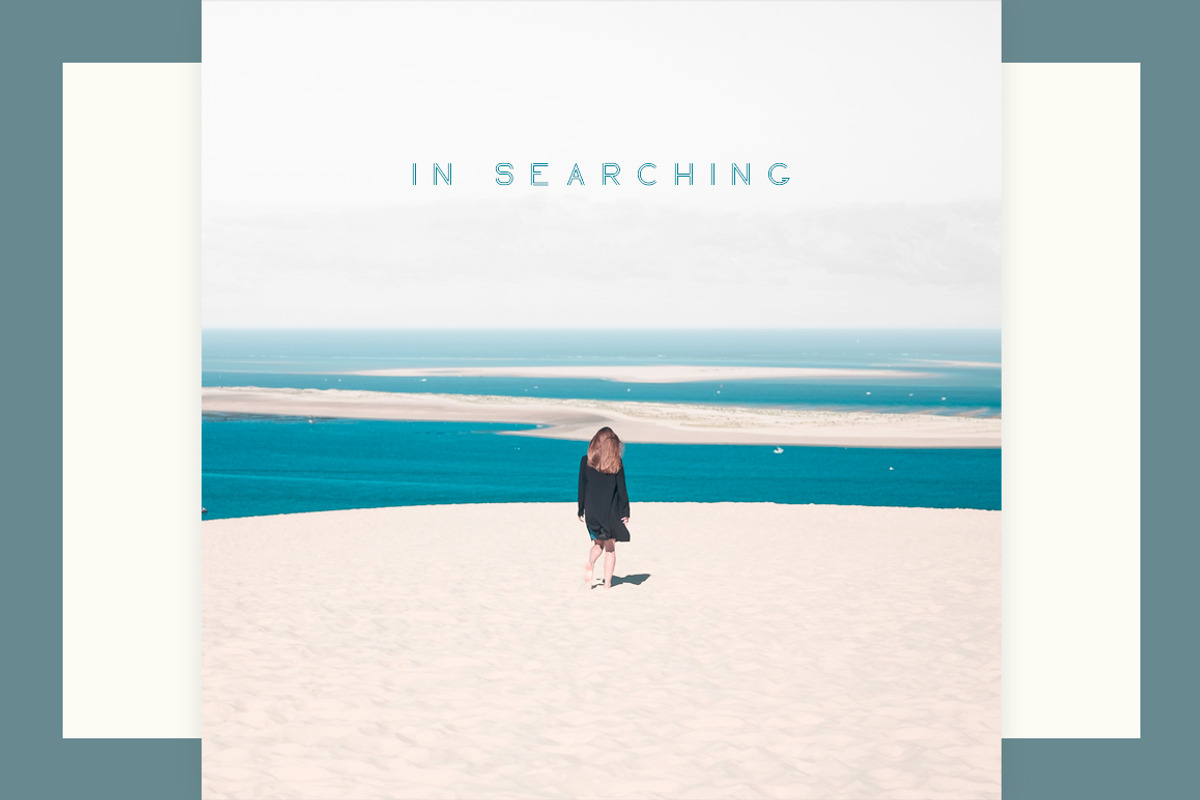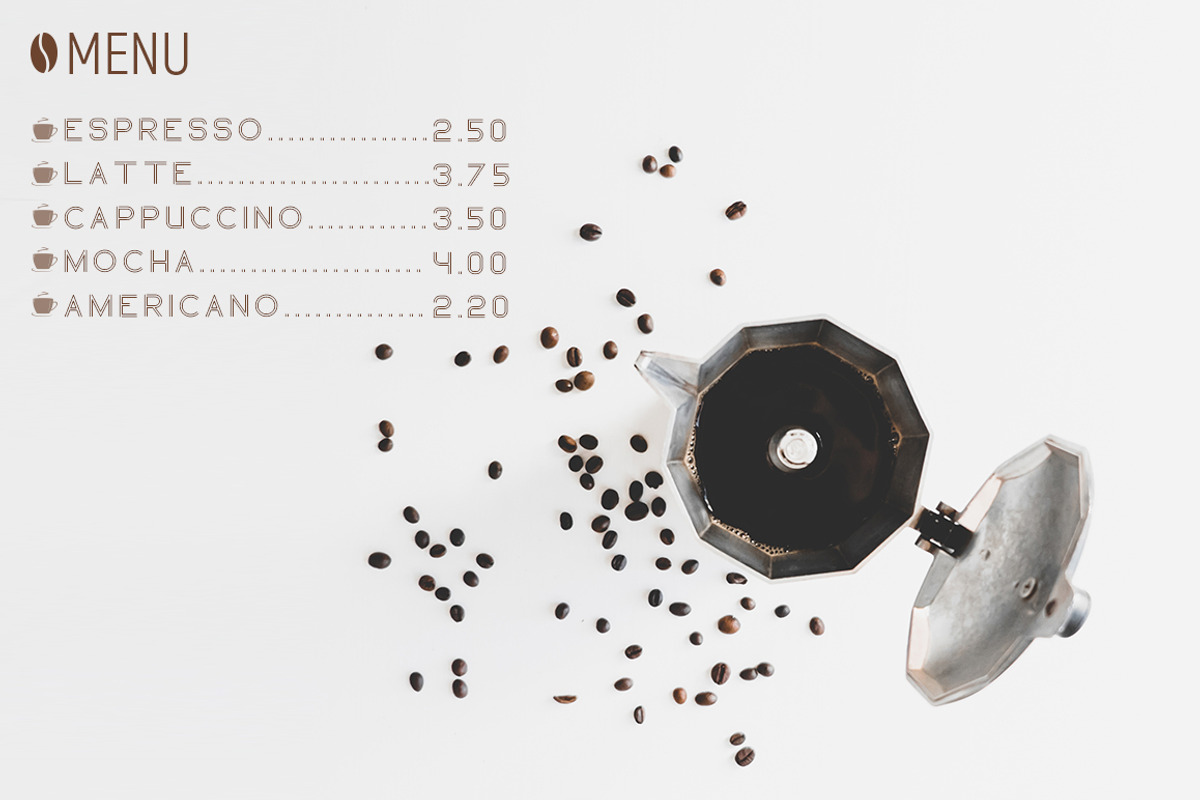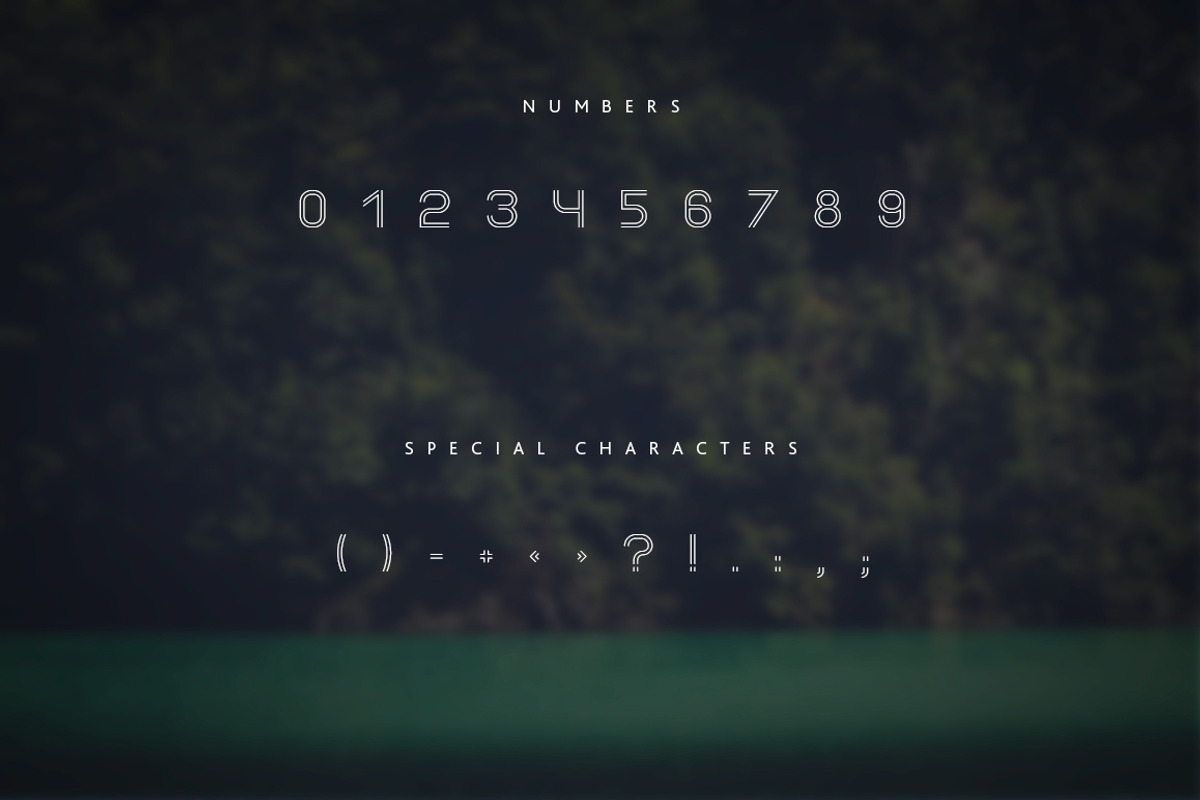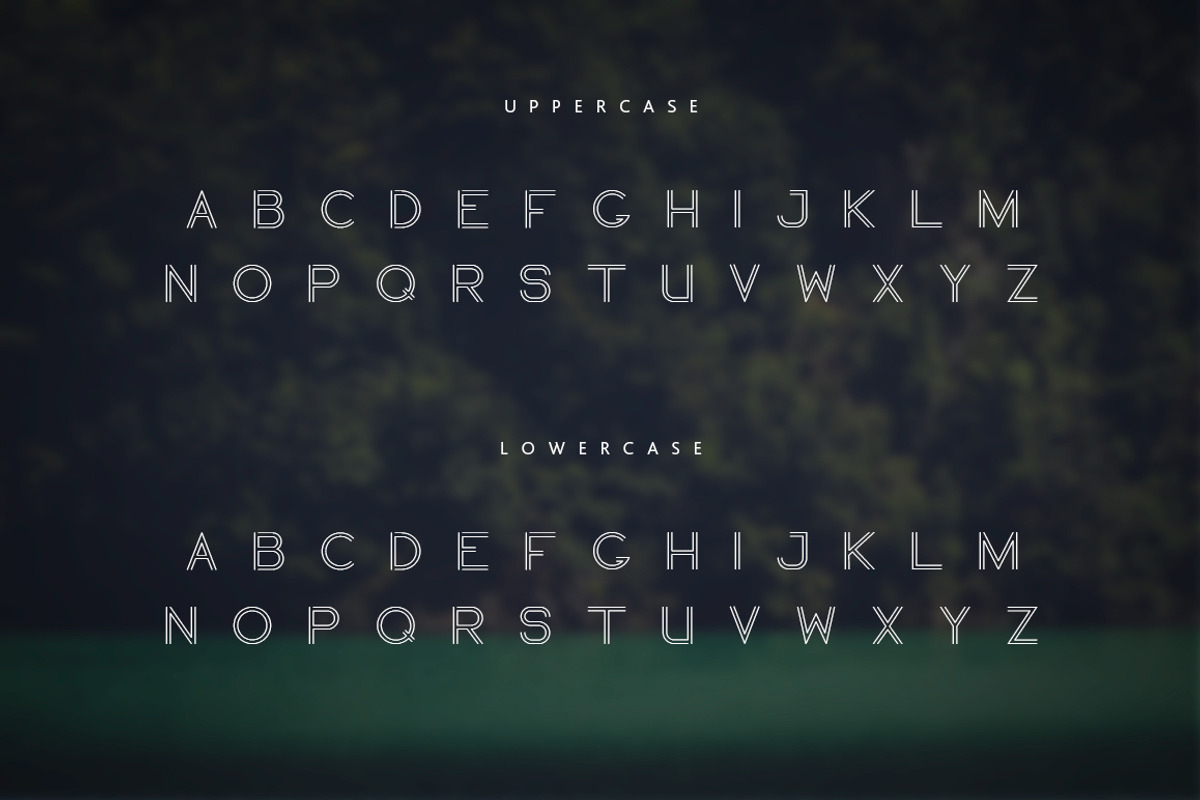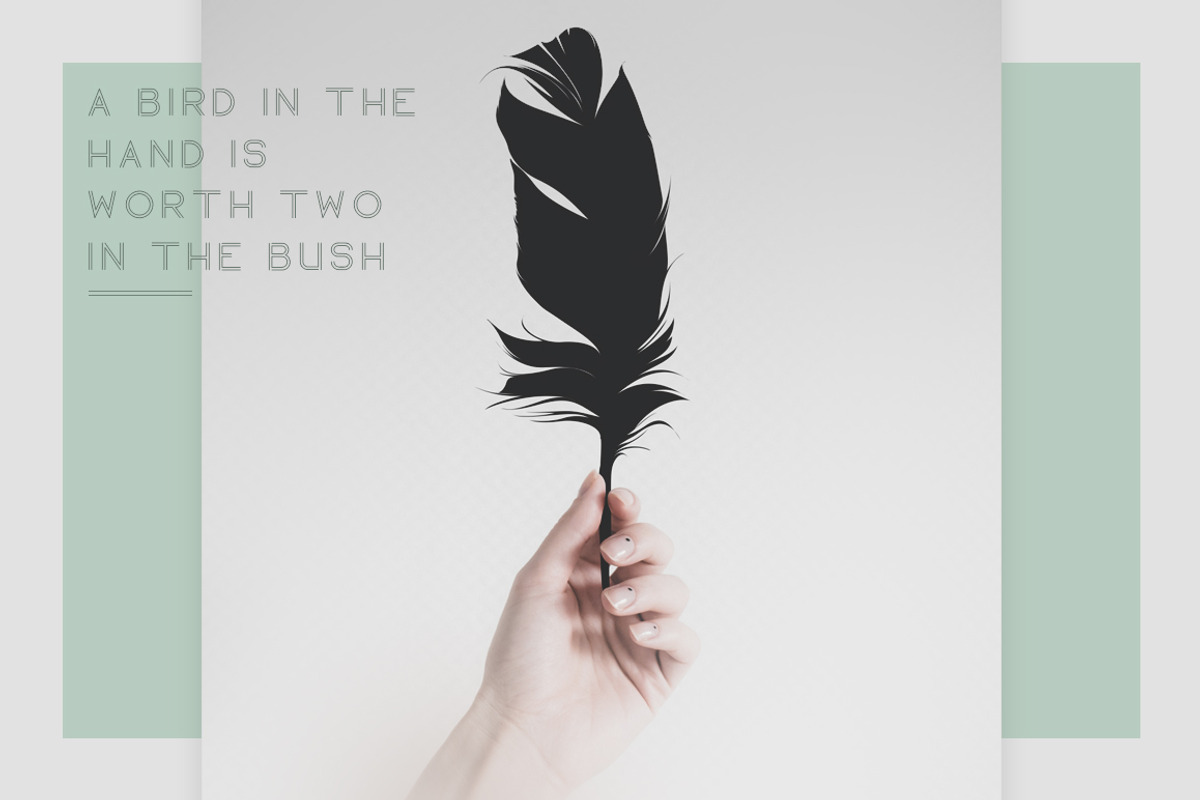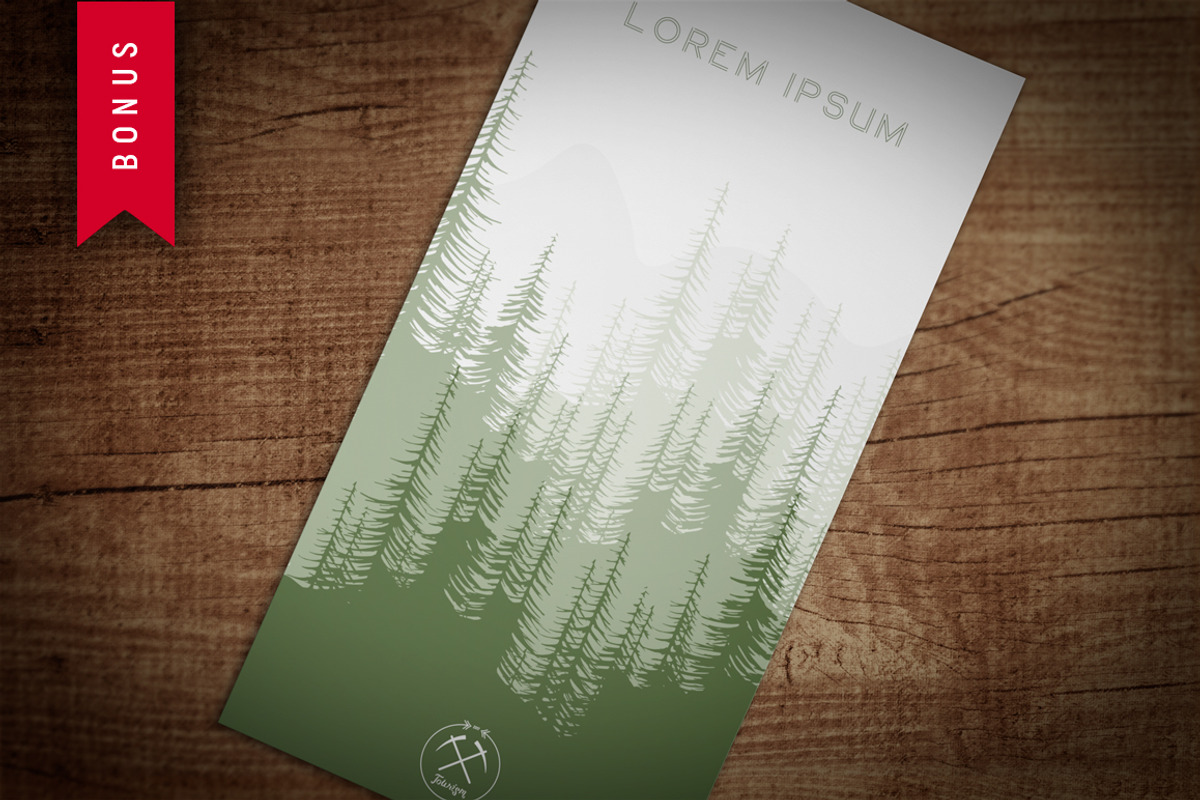
Blogoodf Font
Blogoodf Font by Alex Blogoodf is a font selected for branding, posters, packaging, typography.
Why Blogoodf Font is worth a look
Blogoodf Font by Alex Blogoodf fits naturally into Branding, posters, packaging, typography.